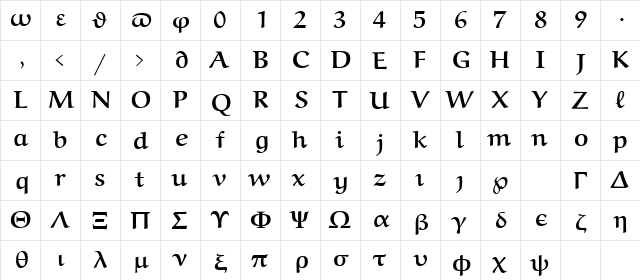
eurb9 Regular Font Preview
eurb9 Regular
Design Context for eurb9 Typeface
eurb9 is a composed and adaptable typeface that performs quietly and consistently across a wide range of design contexts.